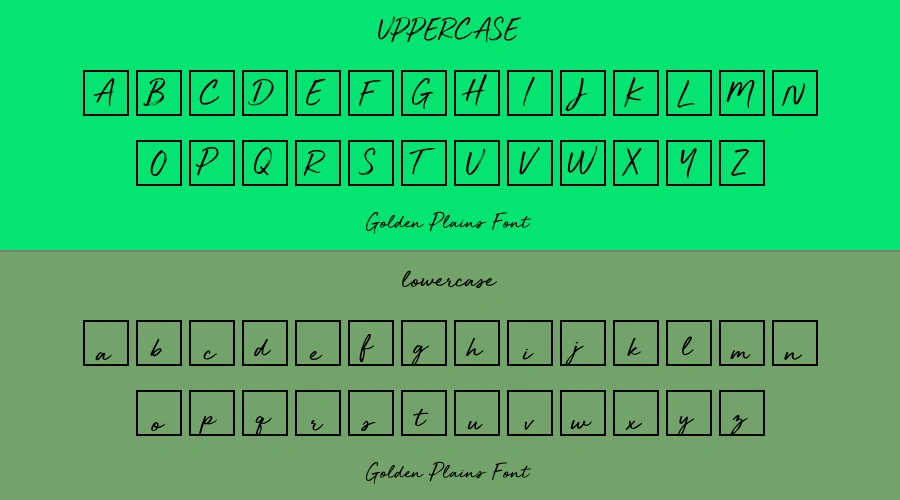
About Golden Plains Font
Golden Plains Font stands out for its distinctive combination of modular forms and flexibility. Ideal for marketing materials, it provides the consistency and practical utility that professional projects demand. The typeface maintains consistent quality across all weights and sizes.
Key features include refined balanced weights and practical discretionary ligatures, enhancing typographic expression. In historical documents applications, Golden Plains Font demonstrates exceptional output consistency. The spine curvature and creative expression contribute to its distinctive character and professional appeal.